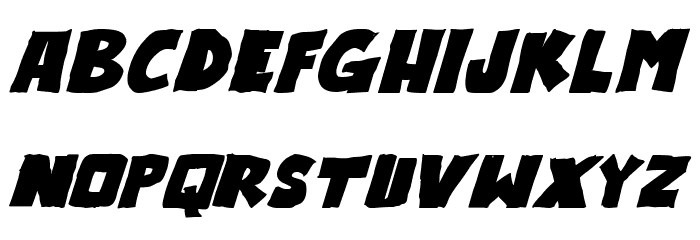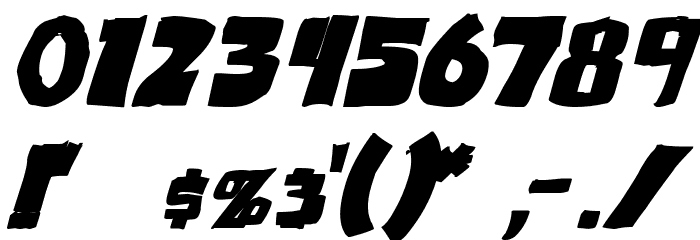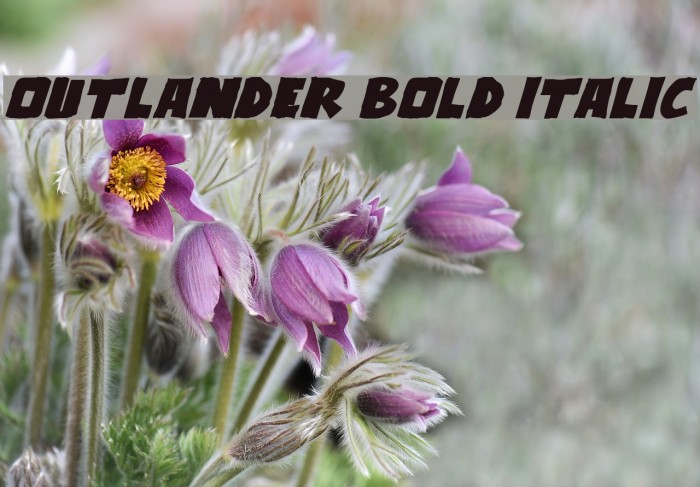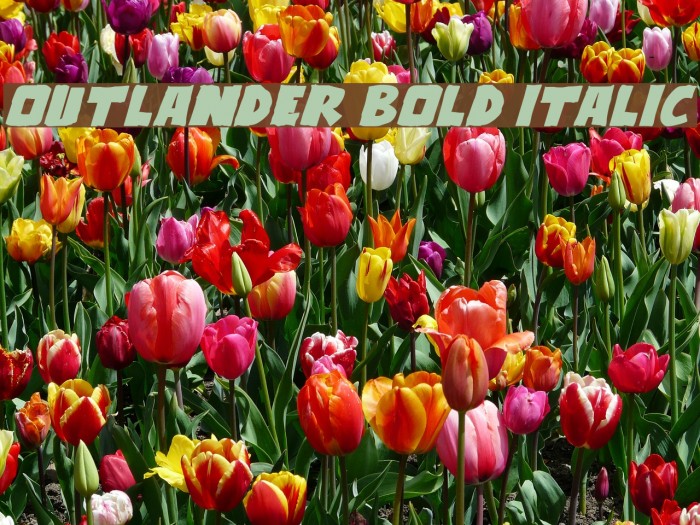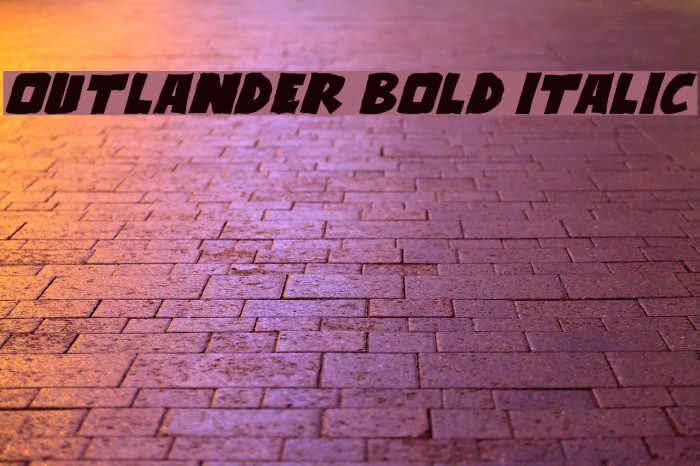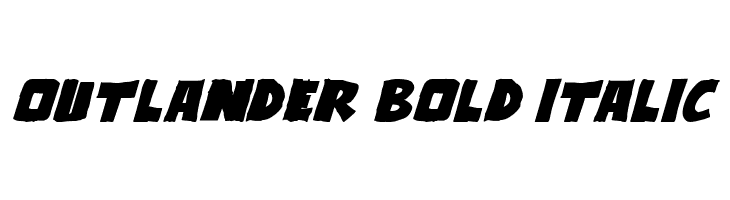
Outlander Bold Italic Font
This font features a bold and dynamic style with an italic slant, giving it a sense of movement and energy. The characters are thick and robust, with sharp edges and a slightly irregular form that adds a unique, edgy appearance. The uppercase and lowercase letters maintain a consistent style, while the numbers and special characters complement the overall design. This font is visually striking and commands attention, making it ideal for impactful and creative design projects.
A bold, italic font with a dynamic and edgy style.
- Proposed Projects: Ideal for posters, logos, and headlines that require a bold and energetic look.